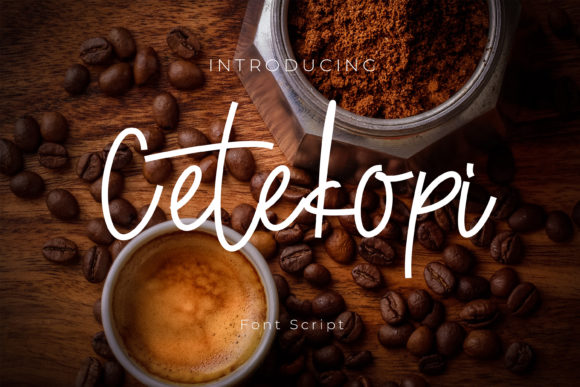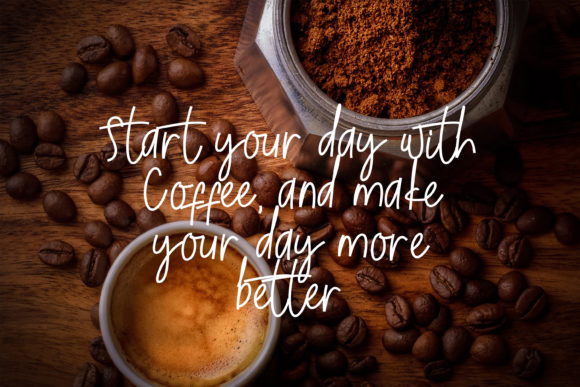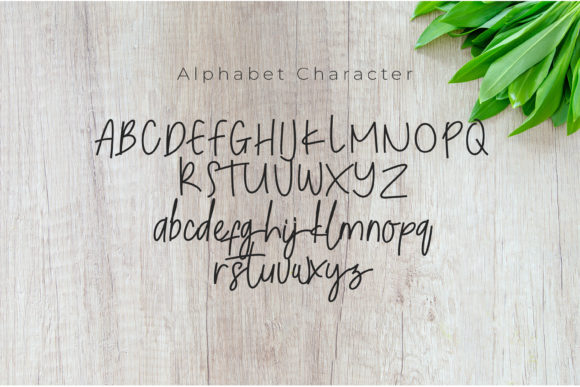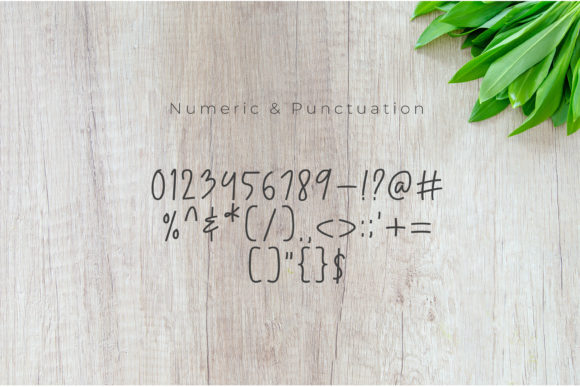
Cetekopi Font
About Cetekopi Font
Cetekopi feels equally charming and modern. This stunning handwritten font is a stylish homage to classic calligraphy.It will elevate a wide range of design projects to the highest level, be it branding, headings, wedding designs, invitations, signatures, logos, labels, and much more!